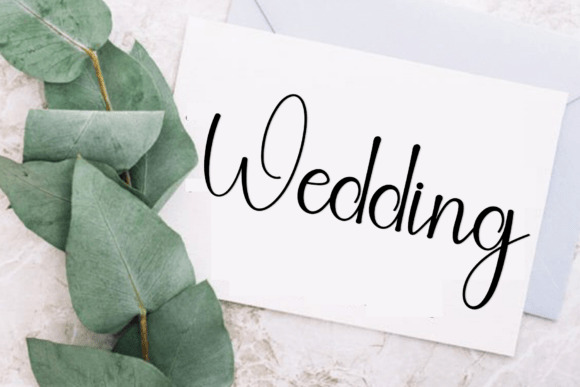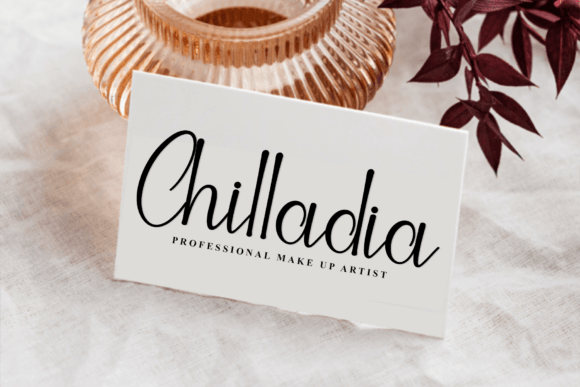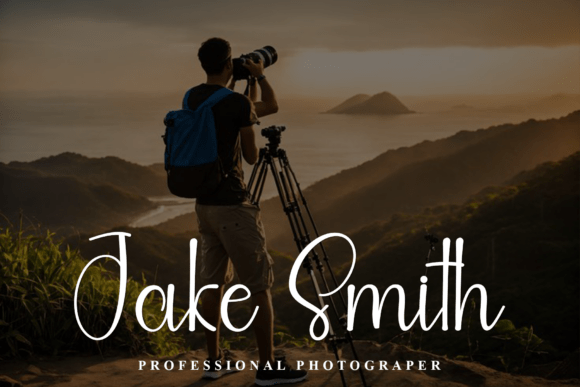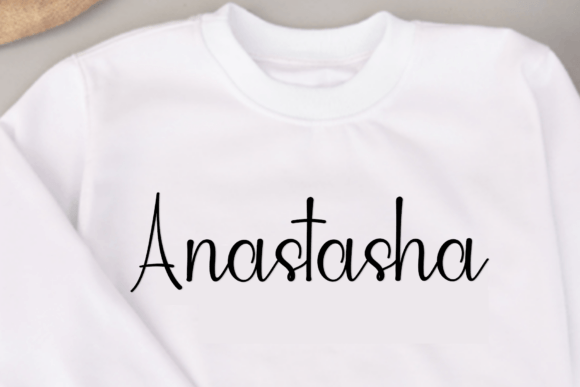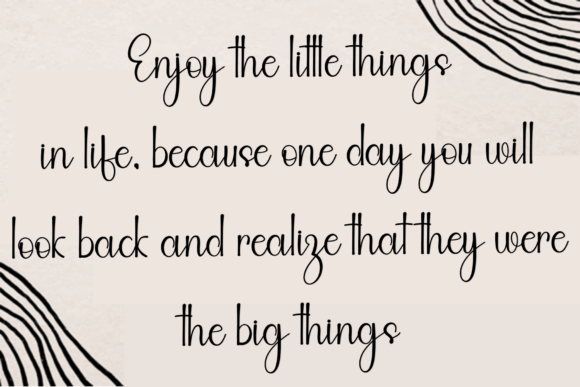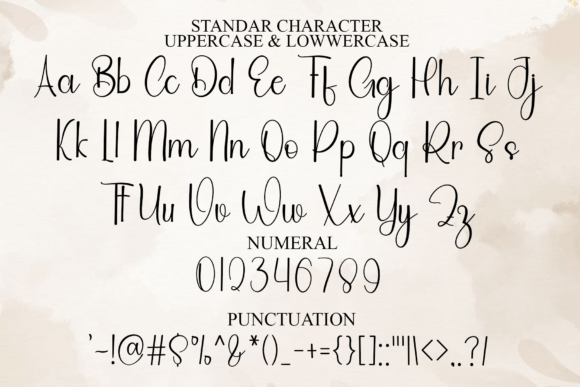
Introducing Dear Cutegirl Font: The Ultimate Holiday Typeface
Are you looking for a font that embodies the spirit of the holiday season? Look no further than Dear Cutegirl Font, a festive and merry typeface that’s perfect for adding a touch of enchantment to your designs. With its decorative elements and whimsical flair, this font is sure to bring a cheerful and nostalgic ambiance to your words.
A Festive Font for Holiday Projects
Dear Cutegirl Font is specifically designed for holiday-themed projects, making it the perfect choice for greeting cards, gift tags, and other seasonal designs. Its unique and playful style is sure to capture the hearts of your audience and leave a lasting impression. Whether you’re a designer, crafter, or DIY enthusiast, this font is sure to become your go-to choice for all your holiday projects.
What Makes Dear Cutegirl Font Special?
So, what sets Dear Cutegirl Font apart from other typefaces? For starters, it’s PUA encoded, which means you can access all of the amazing glyphs and ligatures with ease. This font is designed to be user-friendly, making it easy for you to create stunning designs without any hassle. Plus, its decorative elements and whimsical flair add a touch of magic to your typography, making it perfect for creating enchanting holiday designs.
Dear Cutegirl Font is a must-have for designers and crafters who want to add a personal touch to their holiday projects. Whether you’re creating custom greeting cards, gift tags, or other seasonal designs, this font is sure to bring your creations to life. Its unique style and playful flair make it perfect for a variety of projects, from DIY crafts to professional design work.
Key Features of Dear Cutegirl Font
- PUA encoded: Easy access to all glyphs and ligatures
- Festive and merry style: Perfect for holiday-themed projects
- Decorative elements and whimsical flair: Adds a touch of enchantment to your designs
- User-friendly: Easy to use and navigate, even for beginners
- Perfect for designers and crafters: Great for creating custom holiday designs
How to Use Dear Cutegirl Font
Need some inspiration for your holiday projects? Here are a few tips for using Dear Cutegirl Font:
- Pair with other holiday fonts: Create a unique and festive look by pairing Dear Cutegirl Font with other holiday fonts
- Use for custom gift tags: Add a personal touch to your gifts with custom gift tags featuring Dear Cutegirl Font
- Create a holiday party invitation: Use Dear Cutegirl Font to create a festive and fun holiday party invitation
Dear Cutegirl Font is the perfect choice for anyone looking to add a touch of holiday magic to their designs. With its festive and merry style, decorative elements, and whimsical flair, this font is sure to bring a cheerful and nostalgic ambiance to your words. Whether you’re a designer, crafter, or DIY enthusiast, Dear Cutegirl Font is a must-have for all your holiday projects.